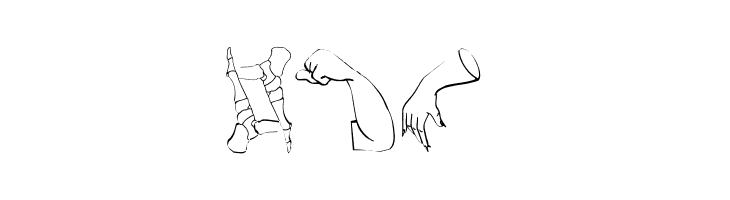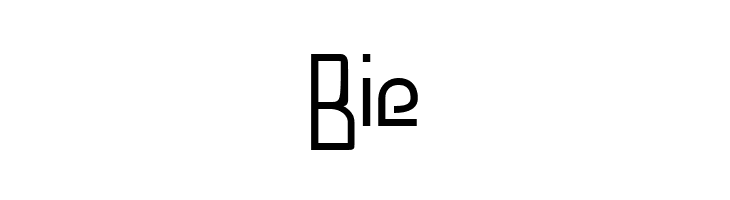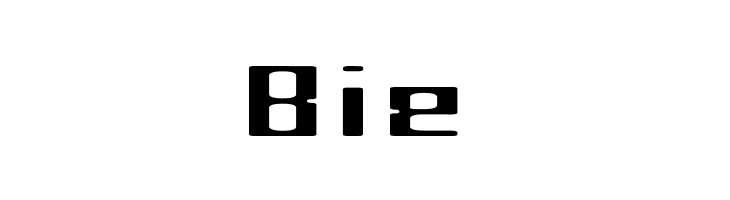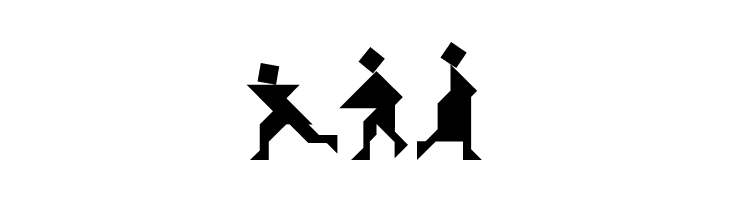
A decorative, 3D ribbon-like font with bold outlines and intricate details.
An anatomical dingbat font with detailed human body illustrations.
A futuristic, geometric font with clean lines and modern aesthetics.
A modern, geometric font with clean lines and a futuristic aesthetic.
A decorative, geometric font with bold, framed letters and a vintage aesthetic.
A playful font with characters as geometric human figures and buildings.